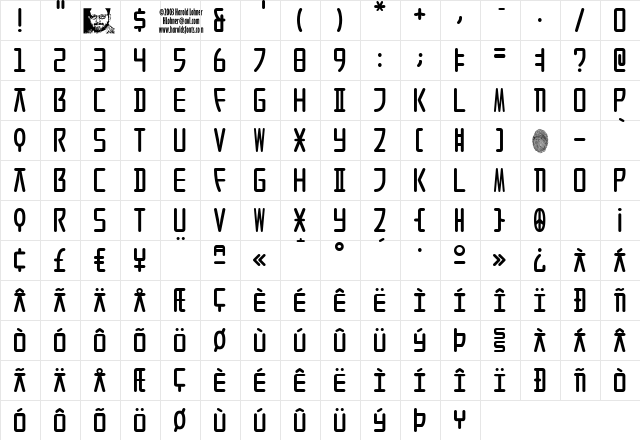
SeoulCaps Alt Regular
Design Context for SeoulCaps Alt Typeface
SeoulCaps Alt is a composed and adaptable typeface that performs quietly and consistently across a wide range of design contexts.